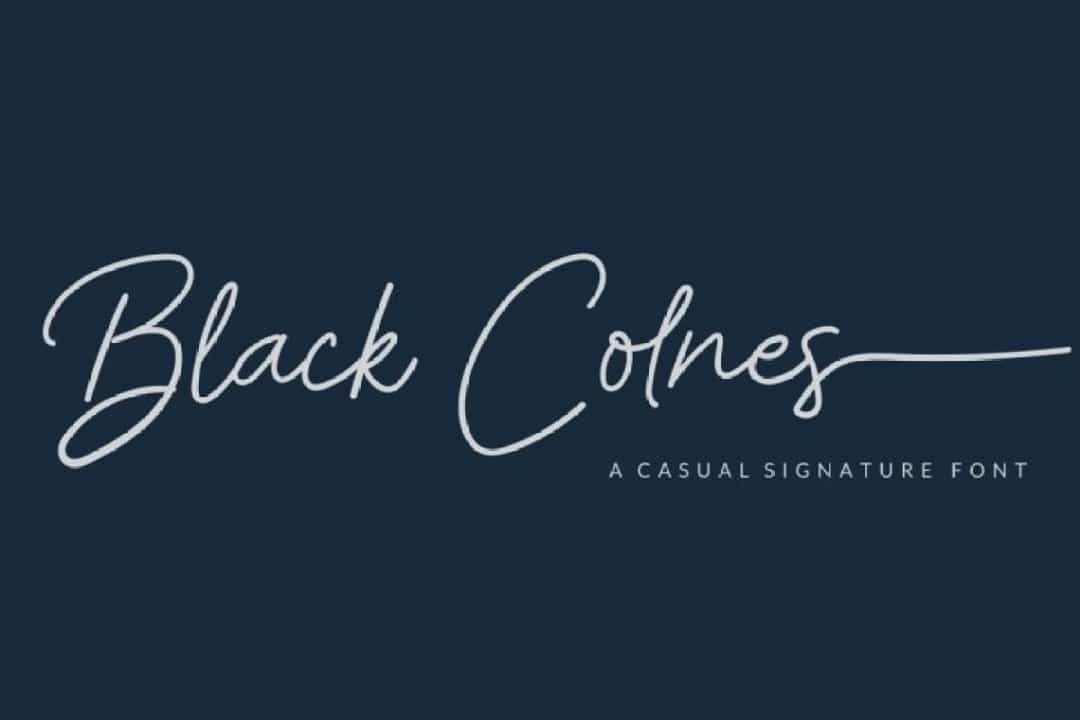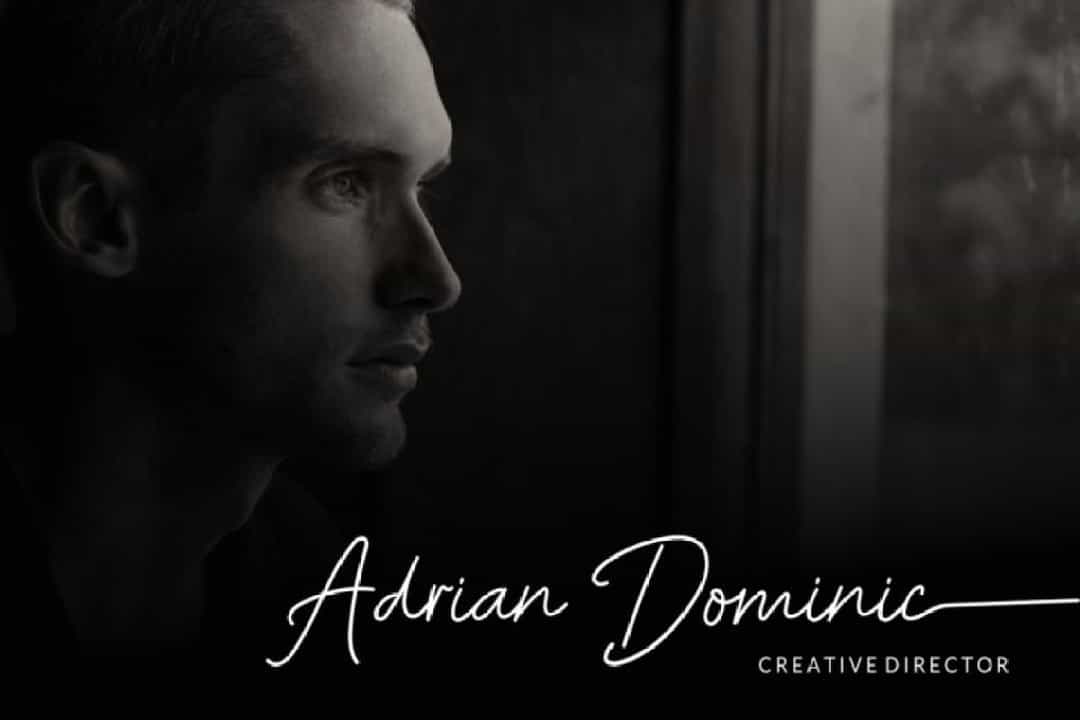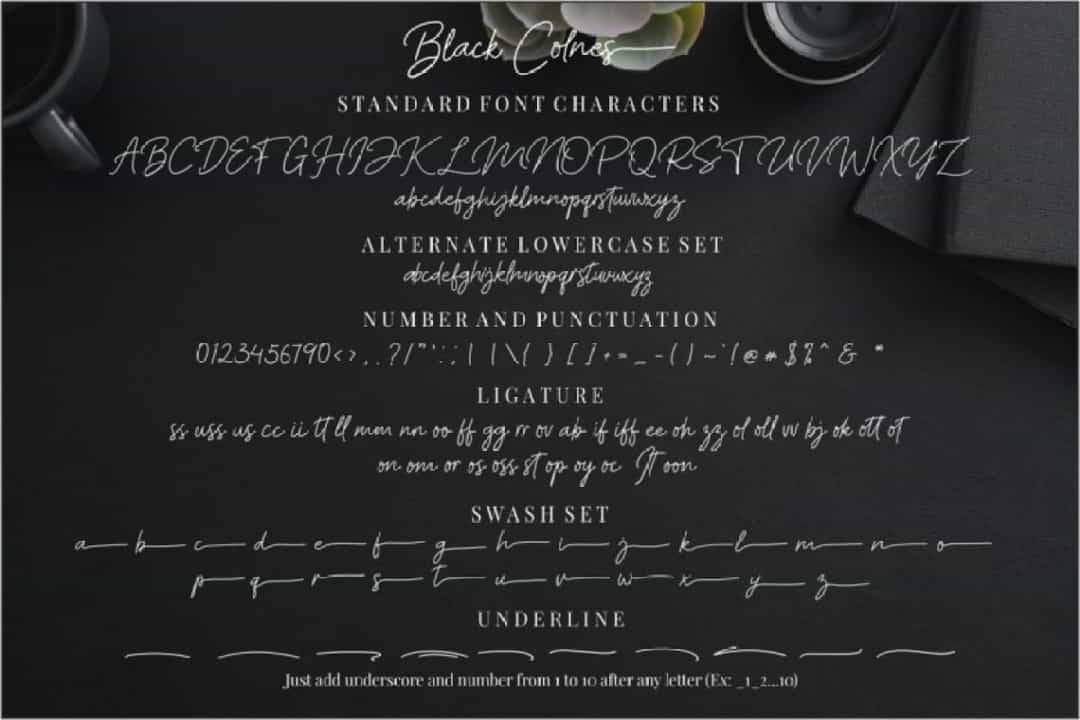
Black Colnes – is a handwritten script font with simple but chic and casual look. It is suitable for projects like water mark photos and logos with signatures, signatures in design quotes for album arts or business cards and many other design works; thus, Black Colnes can be a font of choice.